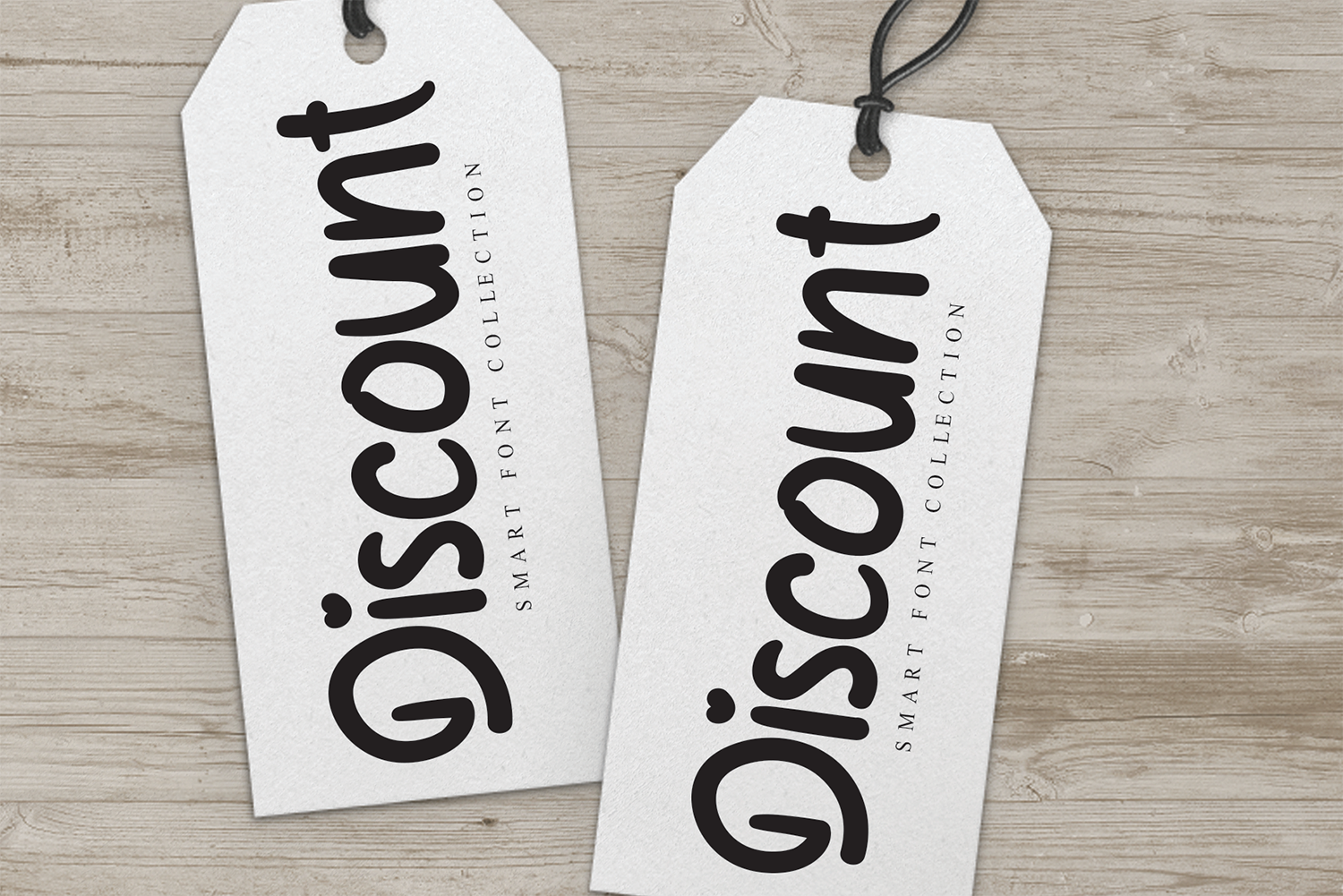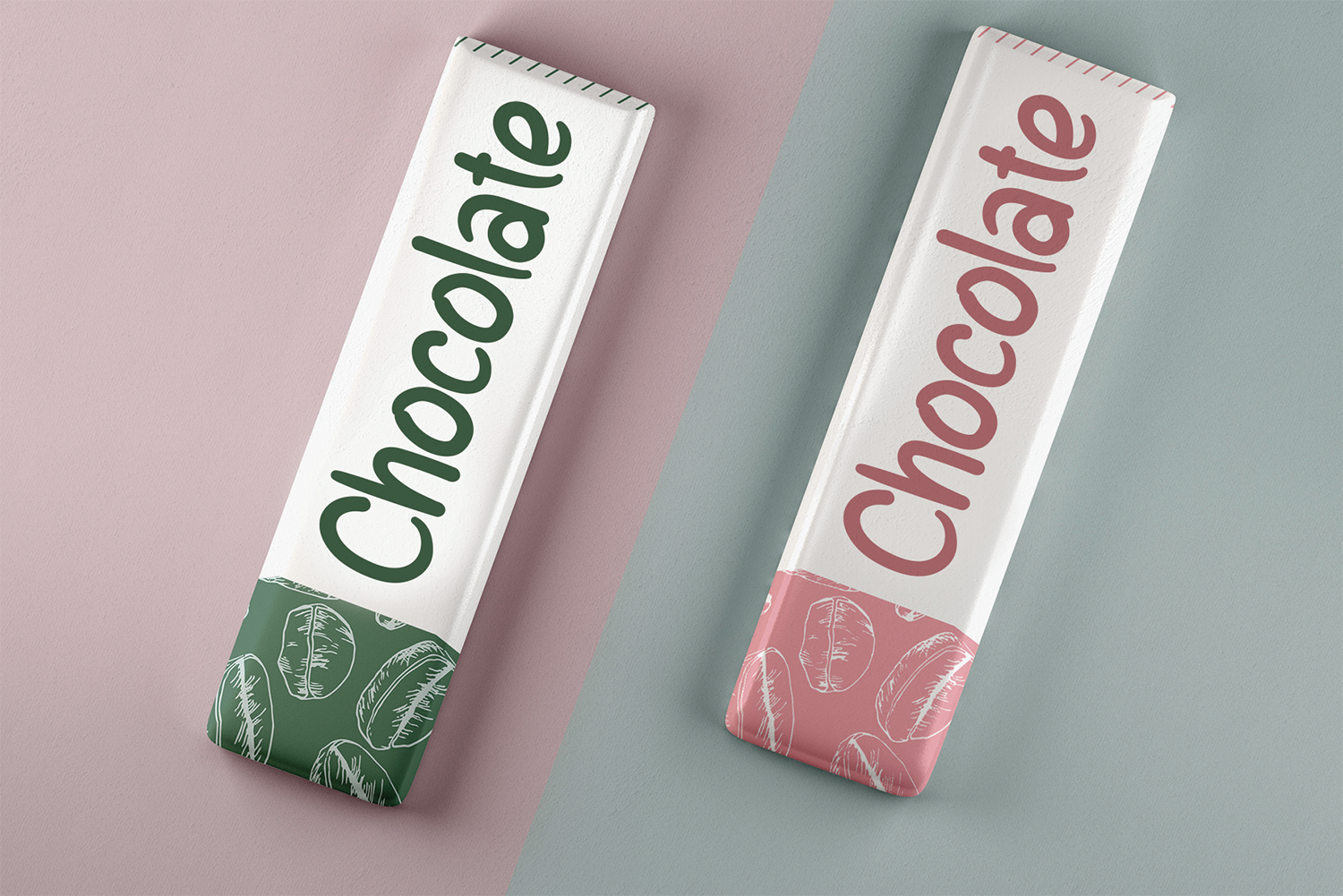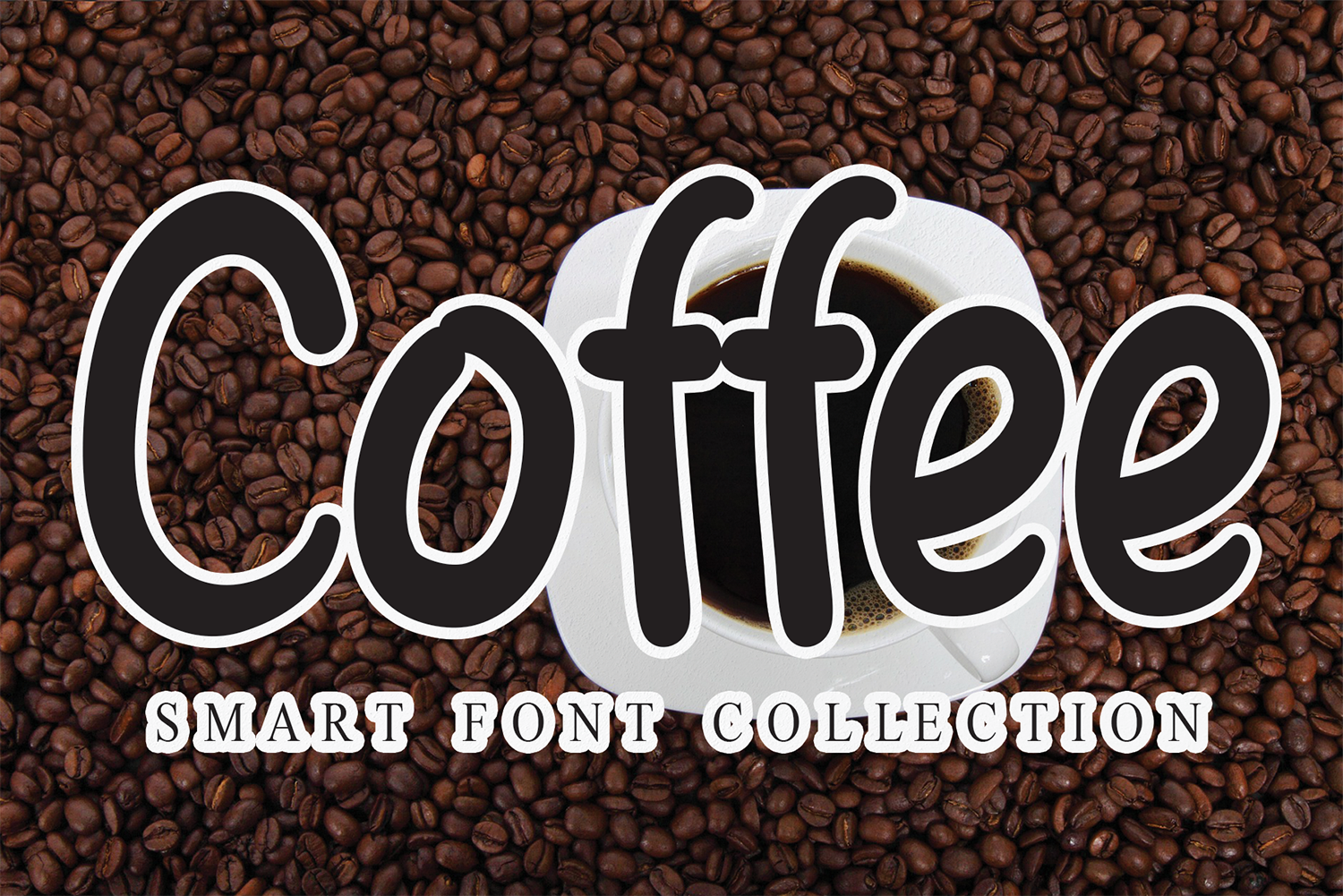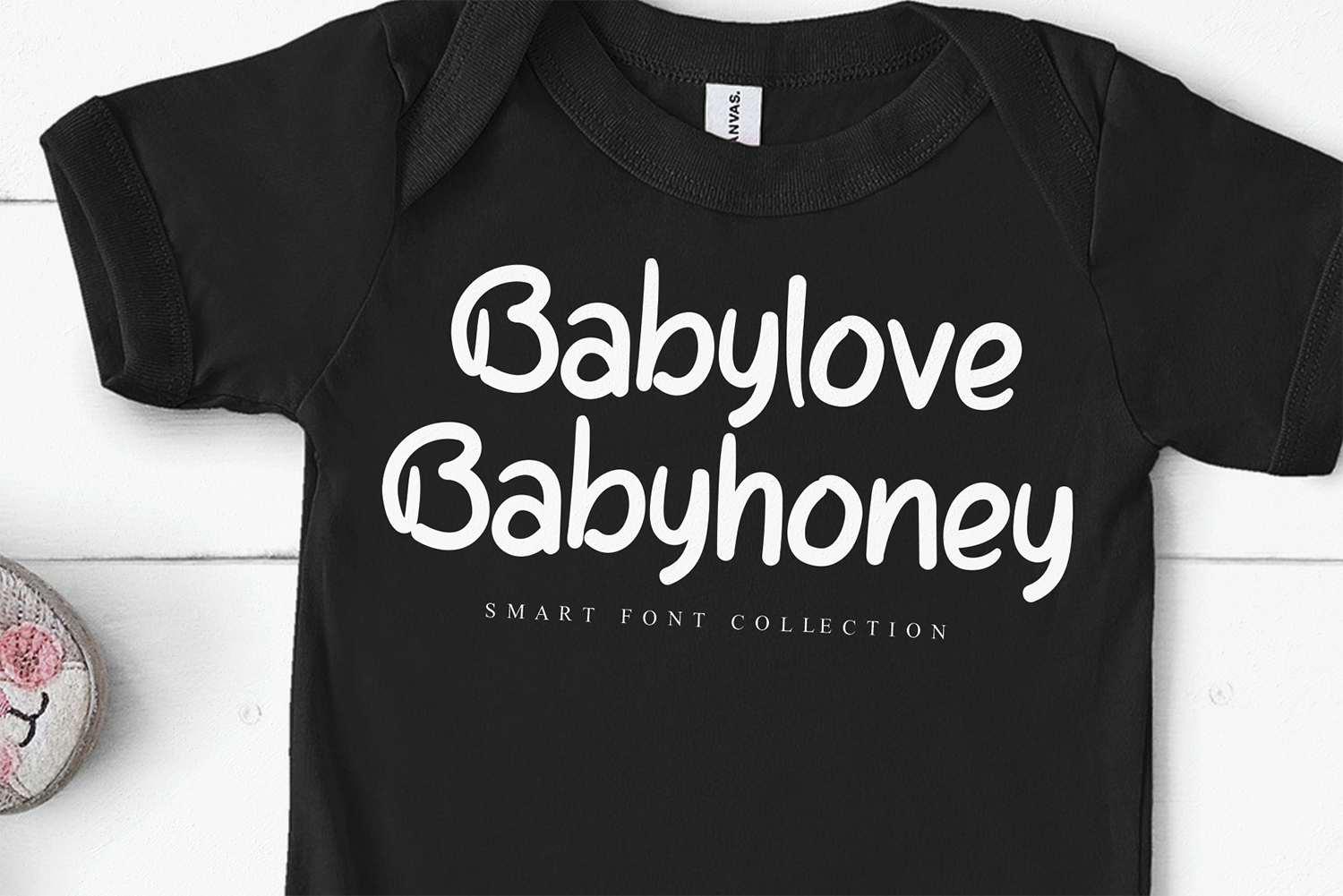
Notelove Free Font
Discover Notelove Free Font, an endearing handwritten font brimming with charm. Its delightful and vivacious style renders it a splendid selection for infusing your designs with a vibrant touch. This free typeface was designed by a talentedΒ Scratchones Creative. If you like it don’t forget to check out the full version.